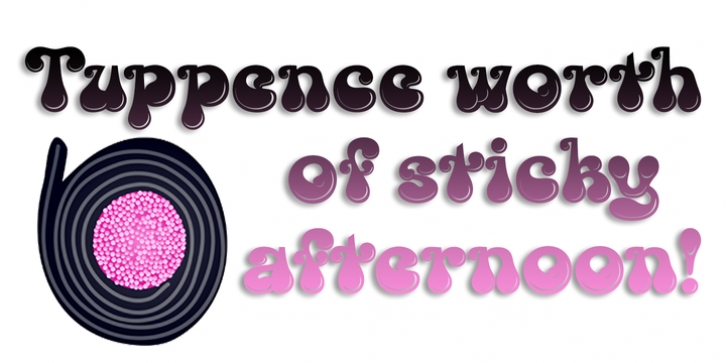
Kevin King says: "When I started this font it was called Pestle... It didn't run - it didn't even walk. At some point I thought, Hmm! Looks a bit like Liquorice! And now... Voila! I remember being able to buy about a yard of Liquorice rolled round a central comfit - how fab! Tuppence worth of sticky afternoon! You could also buy bundles of Liquorice root - which looked like black twigs with bright yellow wood - they left my teeth full of black twiggy bits... The past is a strange Lady - Bless her! This was almost Kingthings Leechy... just another one of my bulbous shiny things - I have always liked letter-shapes with ‘bottom’, probably a 70’s thing, as many a seventies thing did indeed possess it - including the fabulous Chaka Kahn... Oooh, Diva!"
ALL fonts from CheapProFonts have very extensive language support:
They contain some unusual diacritic letters (some of which are contained in the Latin Extended-B Unicode block) supporting: Cornish, Filipino (Tagalog), Guarani, Luxembourgian, Malagasy, Romanian, Ulithian and Welsh.
They also contain all glyphs in the Latin Extended-A Unicode block (which among others cover the Central European and Baltic areas) supporting: Afrikaans, Belarusian (Lacinka), Bosnian, Catalan, Chichewa, Croatian, Czech, Dutch, Esperanto, Greenlandic, Hungarian, Kashubian, Kurdish (Kurmanji), Latvian, Lithuanian, Maltese, Maori, Polish, Saami (Inari), Saami (North), Serbian (latin), Slovak(ian), Slovene, Sorbian (Lower), Sorbian (Upper), Turkish and Turkmen.
And they of course contain all the usual “western” glyphs supporting: Albanian, Basque, Breton, Chamorro, Danish, Estonian, Faroese, Finnish, French, Frisian, Galican, German, Icelandic, Indonesian, Irish (Gaelic), Italian, Northern Sotho, Norwegian, Occitan, Portuguese, Rhaeto-Romance, Sami (Lule), Sami (South), Scots (Gaelic), Spanish, Swedish, Tswana, Walloon and Yapese.